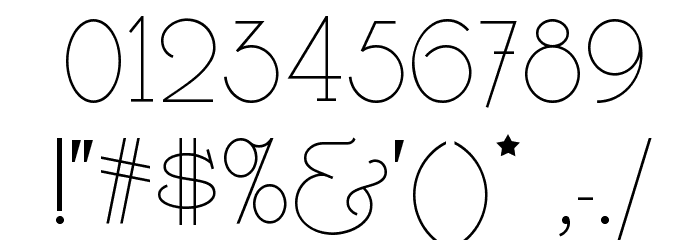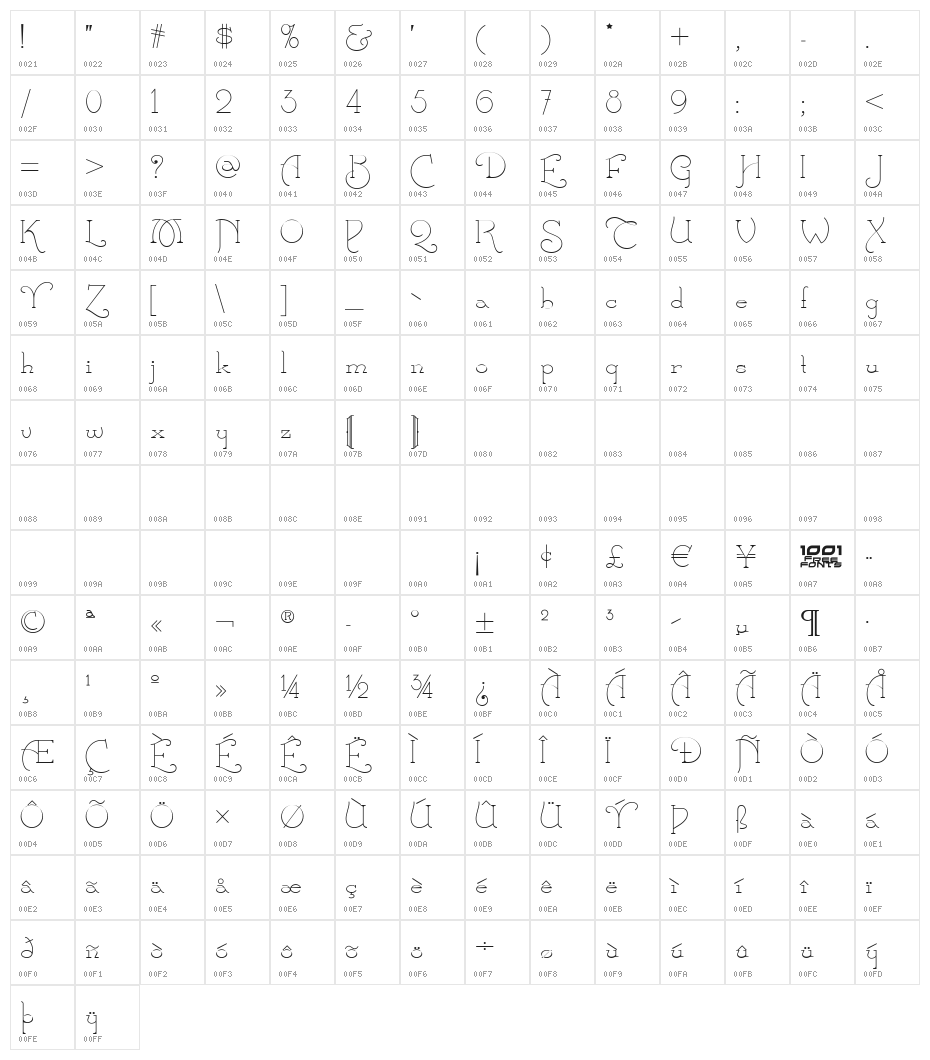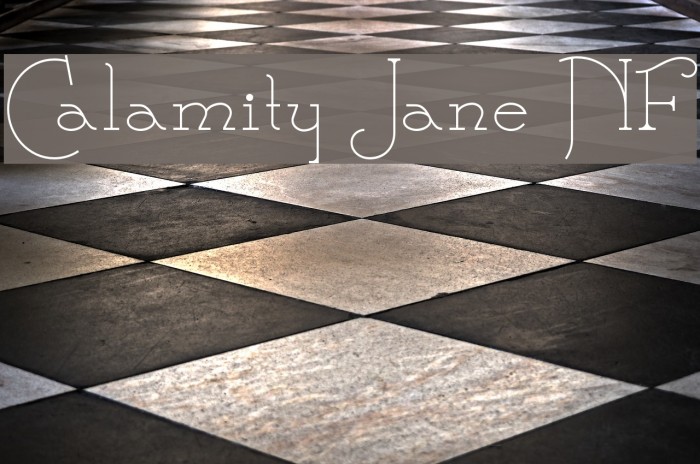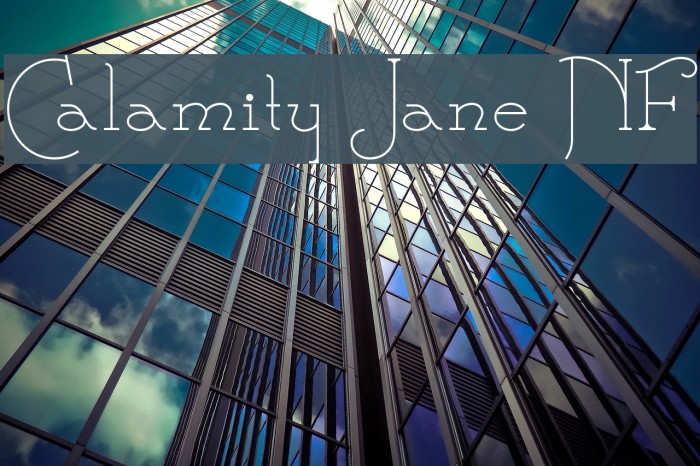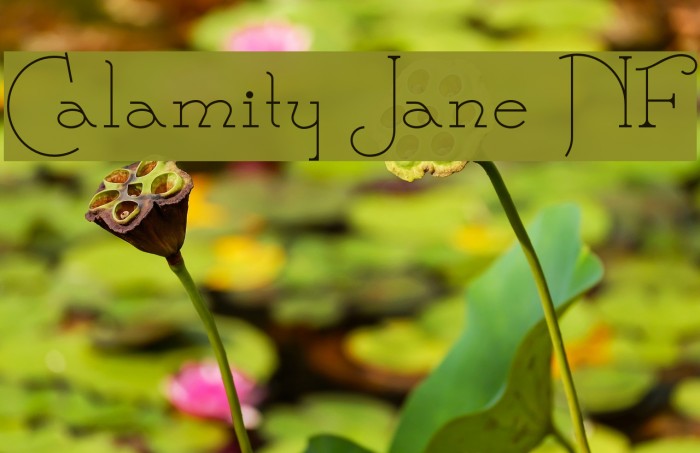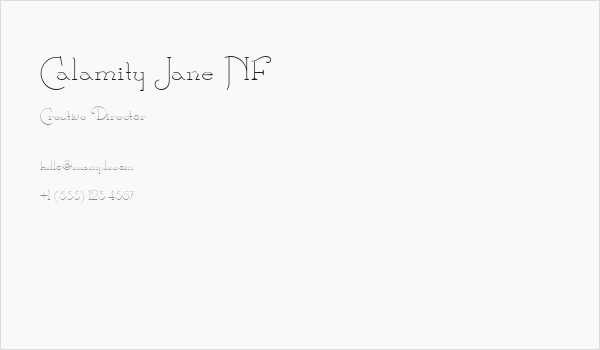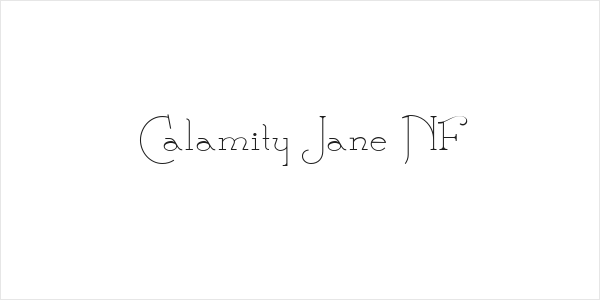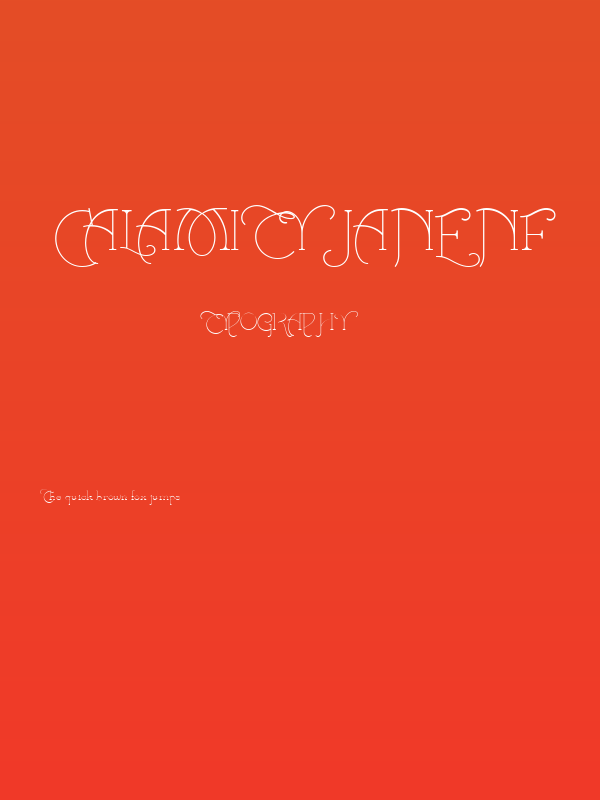
Calamity Jane NF Font
Calamity Jane NF Description
This font features an elegant and decorative style, characterized by its intricate swirls and flourishes. The uppercase letters are particularly ornate, with loops and curls that give them a whimsical and artistic appearance. The lowercase letters maintain a more subdued yet complementary style, ensuring readability while still offering a touch of flair. The numerals are consistent with the overall design, incorporating subtle curves that align with the font's aesthetic. Special characters are uniquely styled, adding to the font's versatility and charm. The overall design is reminiscent of vintage calligraphy, making it suitable for projects that require a touch of elegance and sophistication.
| Overall Style | Vintage, Decorative |
| Proposed Projects | Ideal for wedding invitations, greeting cards, branding, and decorative posters. |